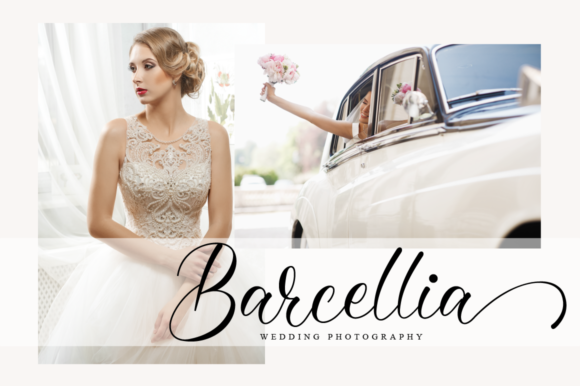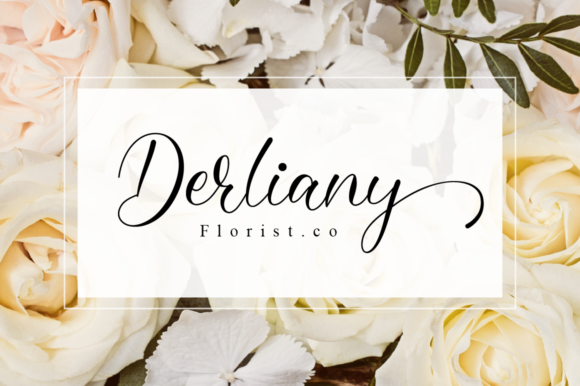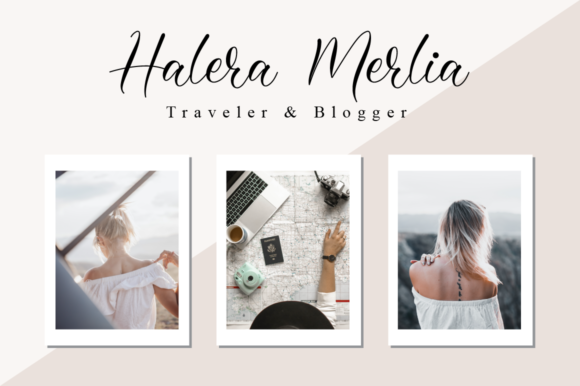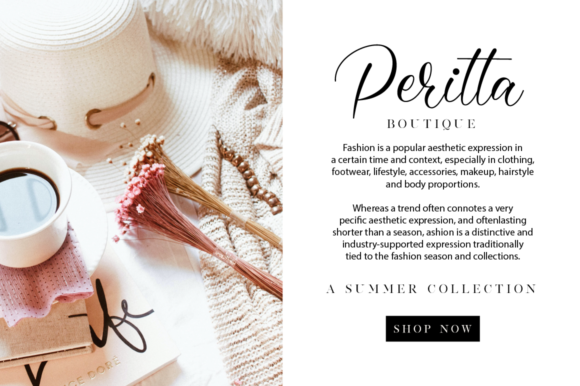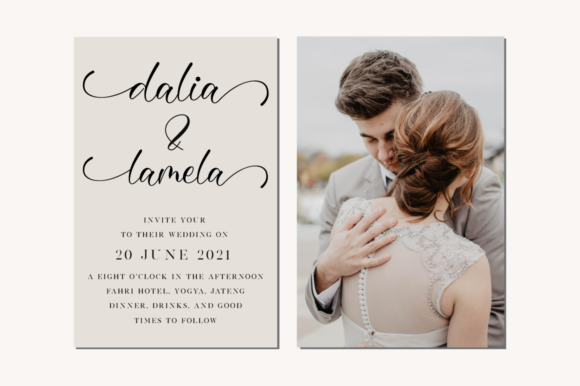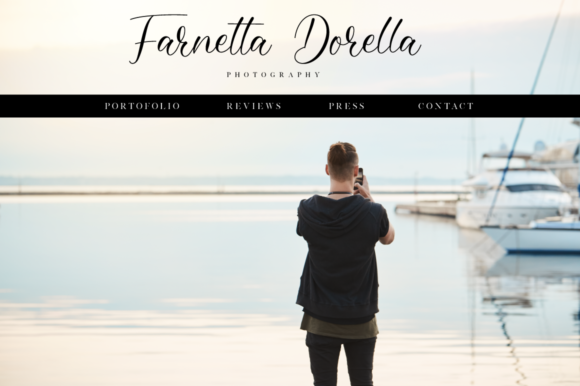
Introduction to Omerlian Font
That’s why I’m excited to introduce you to the Omerlian Font, a delicate and elegant handwritten font that’s perfect for adding a touch of sophistication to your design projects. With its beautiful and well-balanced characters, this font is a valuable resource for designers looking to create high-quality designs with ease.
One of the best things about the Omerlian Font is that it’s PUA encoded, making it easy to access all of the glyphs and swashes you need to create unique and creative designs. Plus, with a transparent background, you can easily layer it over other design elements to create a truly one-of-a-kind look.
Key Features of Omerlian Font
- High-quality design with a unique and creative style, perfect for various design projects.
- Features a large character set, including uppercase and lowercase letters, numbers, and punctuation marks.
- Perfect for designers looking for a unique and creative font to add a personal touch to their projects.
Honest Review: Omerlian Font
I recently stumbled upon the Omerlian Font, and I’m excited to share my honest thoughts on this design resource. As a designer, I’m always on the lookout for high-quality fonts that can elevate my creative projects.
Here are some things that work well with the Omerlian Font: ✨
- Clean and modern design
- High quality, with no noticeable flaws
- Perfect for use with a transparent background
- Comes in a range of font weights and styles
However, I do have a few limitations to mention: ⚠️
- No extensive character set
- No support for Asian languages
Overall, I’m impressed with the Omerlian Font. While it may not be perfect, it’s a solid choice for designers who want a high-quality font for their creative projects. With a little patience and flexibility, I think you’ll find the Omerlian Font to be a valuable addition to your design arsenal.
Tips for Getting the Most Out of the Omerlian Font
Experiment with different font sizes, colors, and settings to achieve the desired look for your creative project. Use the font in combination with other design elements to create a visually appealing design.
Common Use Cases for the Omerlian Font
The Omerlian Font is perfect for use in graphic design, digital art, and creative projects. It’s also a great option for logos, business cards, and other marketing materials where a high-quality, unique font is desired.